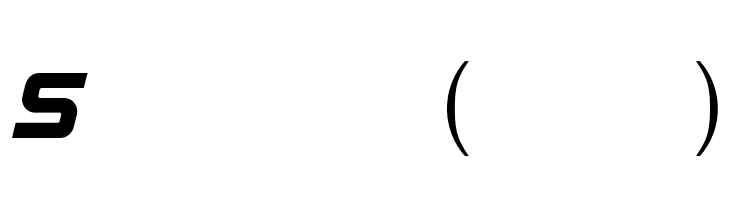
( Nurf Designs )
A modern, geometric font with bold, italicized uppercase letters and sleek lowercase characters.
( Nurf Designs )
A bold, modern font with geometric influences, ideal for impactful designs.